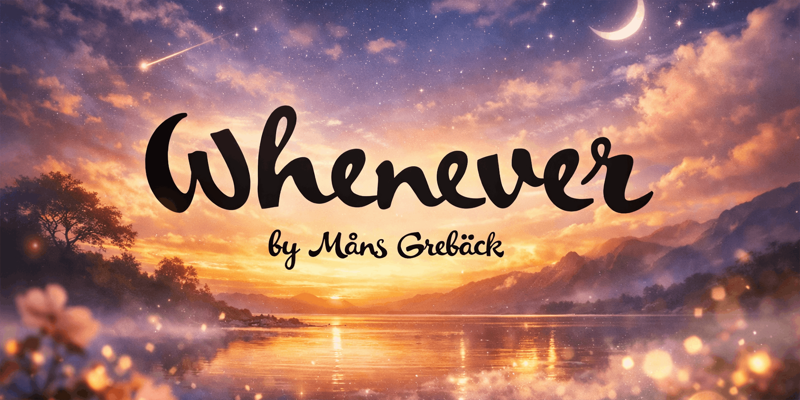
Whenever
NOTE: This font is for PERSONAL USE ONLY! To purchase a commercial license, visit: https://www.mansgreback.com/product/whenever Whenever is a relaxed handwritten script with a soft rhythm and an unforced flow. The letters lean gently forward, with rounded shapes and smooth joins that give the text a friendly, personal feel. Strokes are confident but never rigid, creating a balance between clarity and casual charm. For questions, please visit https://mansgreback.com/faq